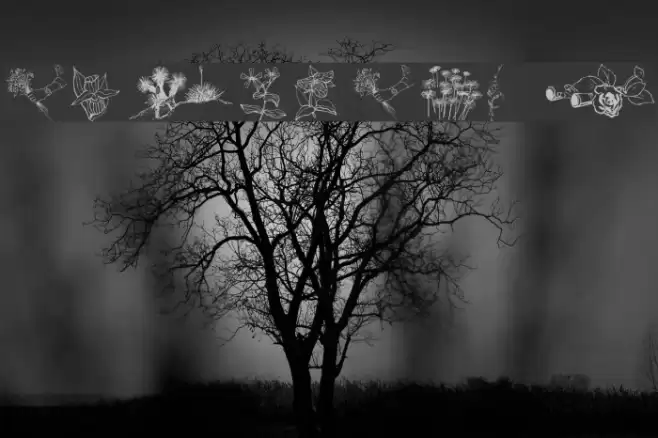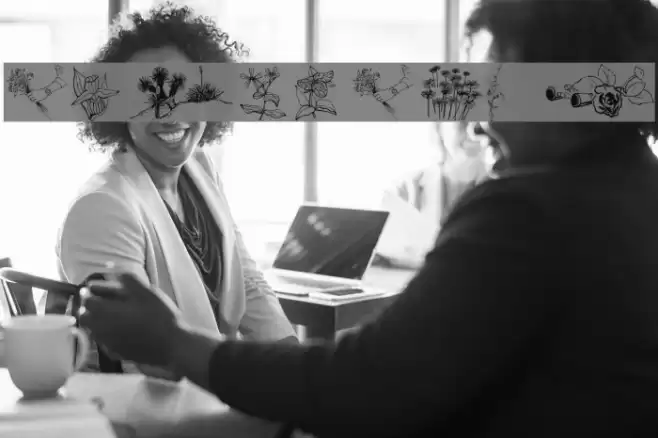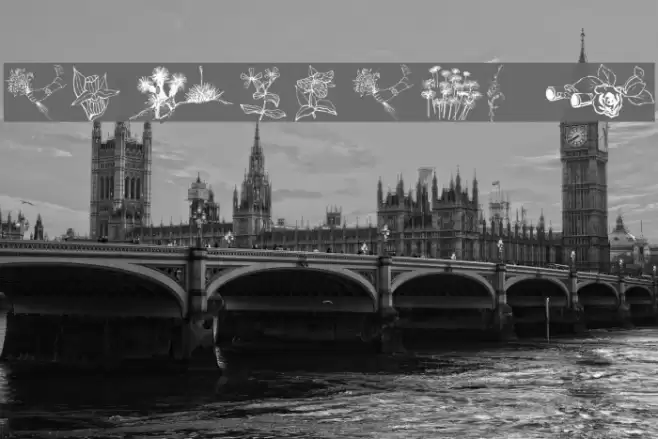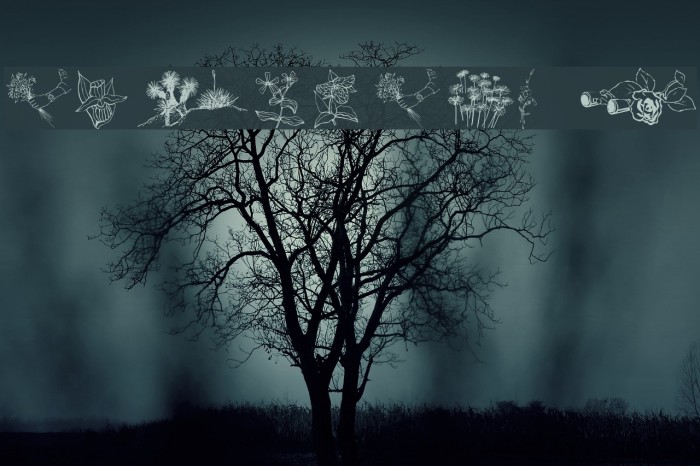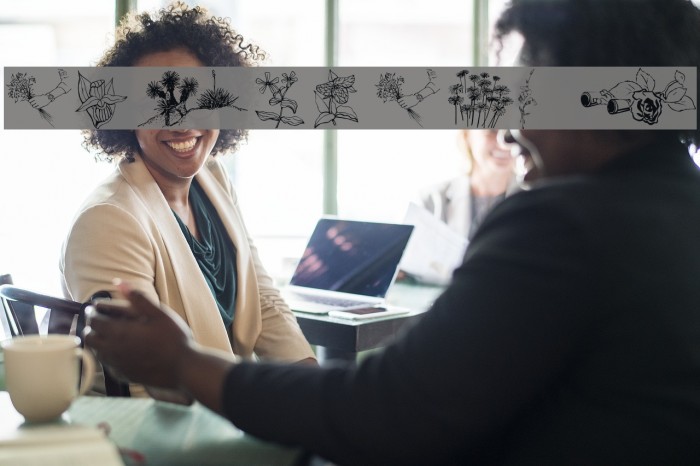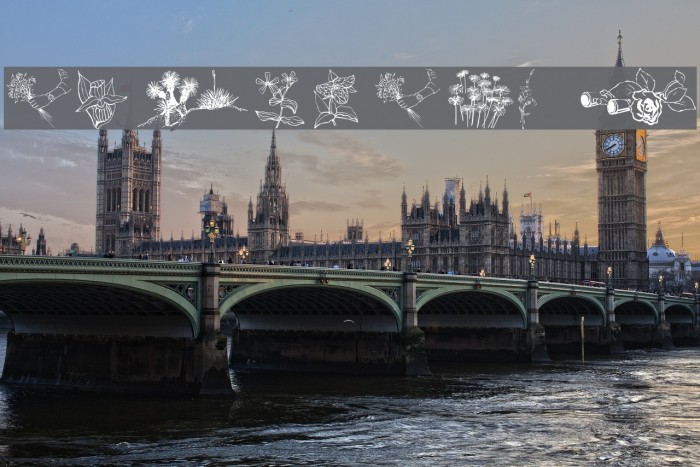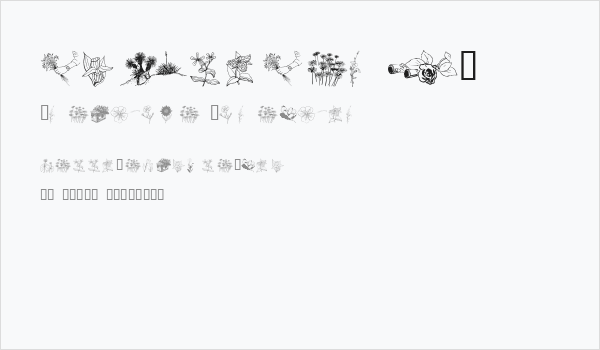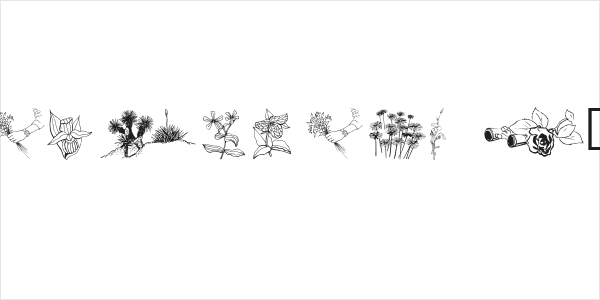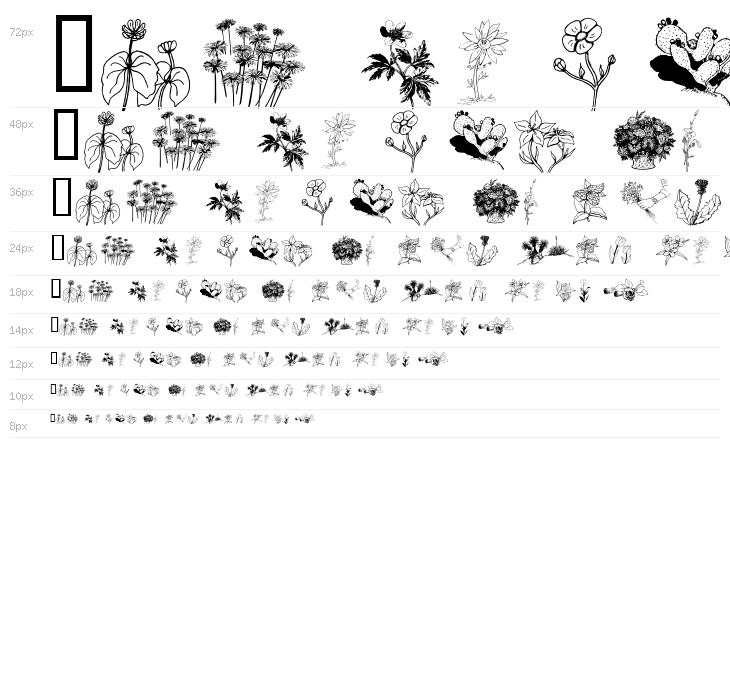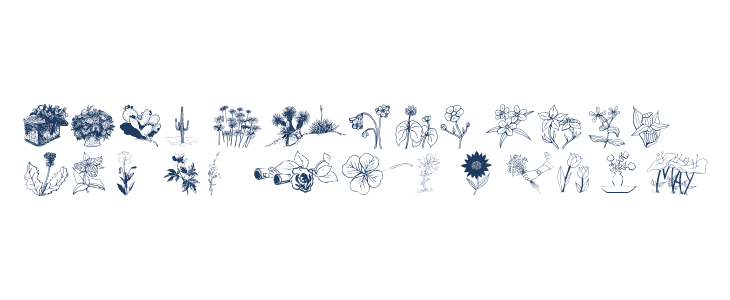
wmflowers2 Font
wmflowers2 Description
A decorative dingbat font featuring detailed black and white illustrations of various flowers and floral arrangements, each glyph representing a unique botanical drawing with fine linework and naturalistic style.
Intricate floral illustration dingbat font from Dingbats fonts.
- Proposed Projects: Greeting cards, wedding invitations, botanical posters, scrapbooking, decorative borders, nature-themed branding.
- Overall Style: Decorative, Botanical, Hand-drawn
- Use Case: Decorative elements, Illustrative accents, Themed dividers